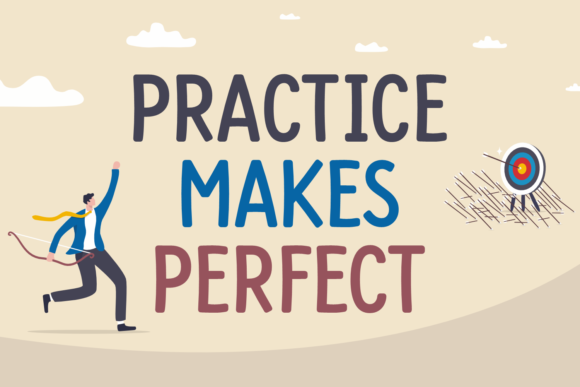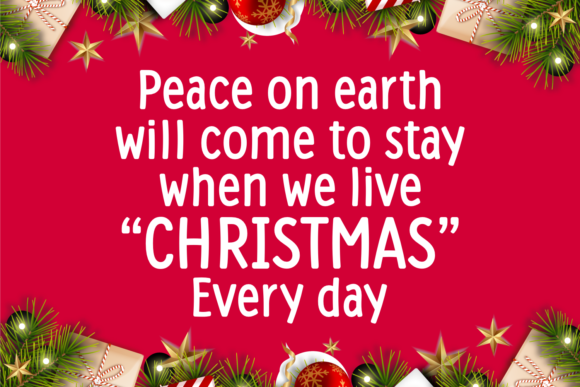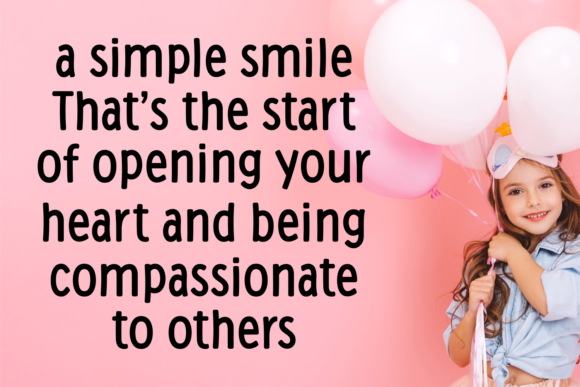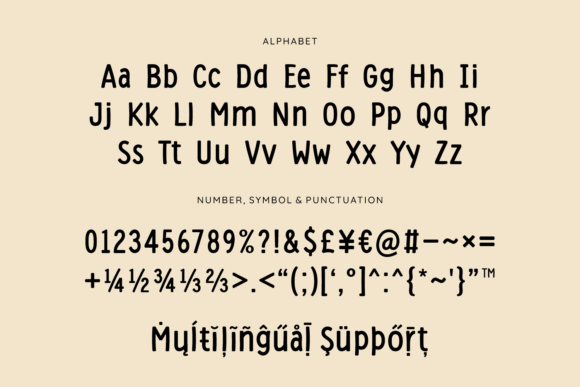
Practice Makes Perfect Font
Practice Makes Perfect is a clean Slab Serif font. You can use this lovely typeface for t-shirts, art prints, frames, wall art, greeting cards, branding, quotes, social media posts, and logos.